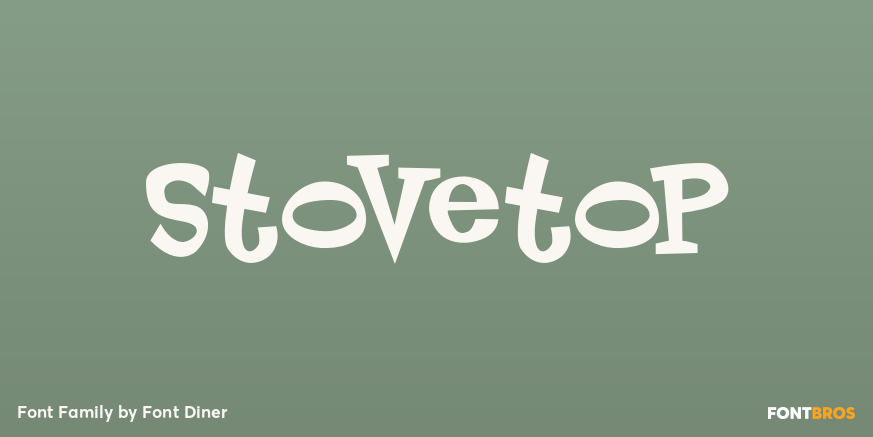
HomeFunWackyStovetop Wacky Stovetop FacebookXPinterestWhatsApp 1 of 1 About Stovetop Just the right blend of herbs and spices come together in this playful offbeat retro font! A perfect side for any main design dish!  DOWNLOAD NOW People also explored Headwar Font Mafinest Font Mother”s Touches Hello Yummy Font Romasa Font Butterfly Waltz Dellyma Font Marrmosta Font Alice Font 423 0 TagsStovetop Font Previous articleAmpersandersNext articlePermanent Waves LEAVE A REPLY Cancel reply Comment: Please enter your comment! Name:* Please enter your name here Email:* You have entered an incorrect email address! Please enter your email address here Website: Save my name, email, and website in this browser for the next time I comment. Personal Use Free Monofonto Personal Use Free Read more about this font Retro Poster Personal Use Free Read more about this font Trio Personal Use Free Read more about this font Angelitta Personal Use Free Read more about this font BLOG Free Fonts Risk: Why Free Fonts Can Be Dangerous for Designers Free Fonts Risk: Why Free Fonts Can Be Dangerous for Designers Using free fonts is a common practice in web and graphic design. However, the... Where to Buy American Fonts Online in 2024 Exploring Font Trends The 10 Best Handwriting Fonts to Add Personality to Your Designs